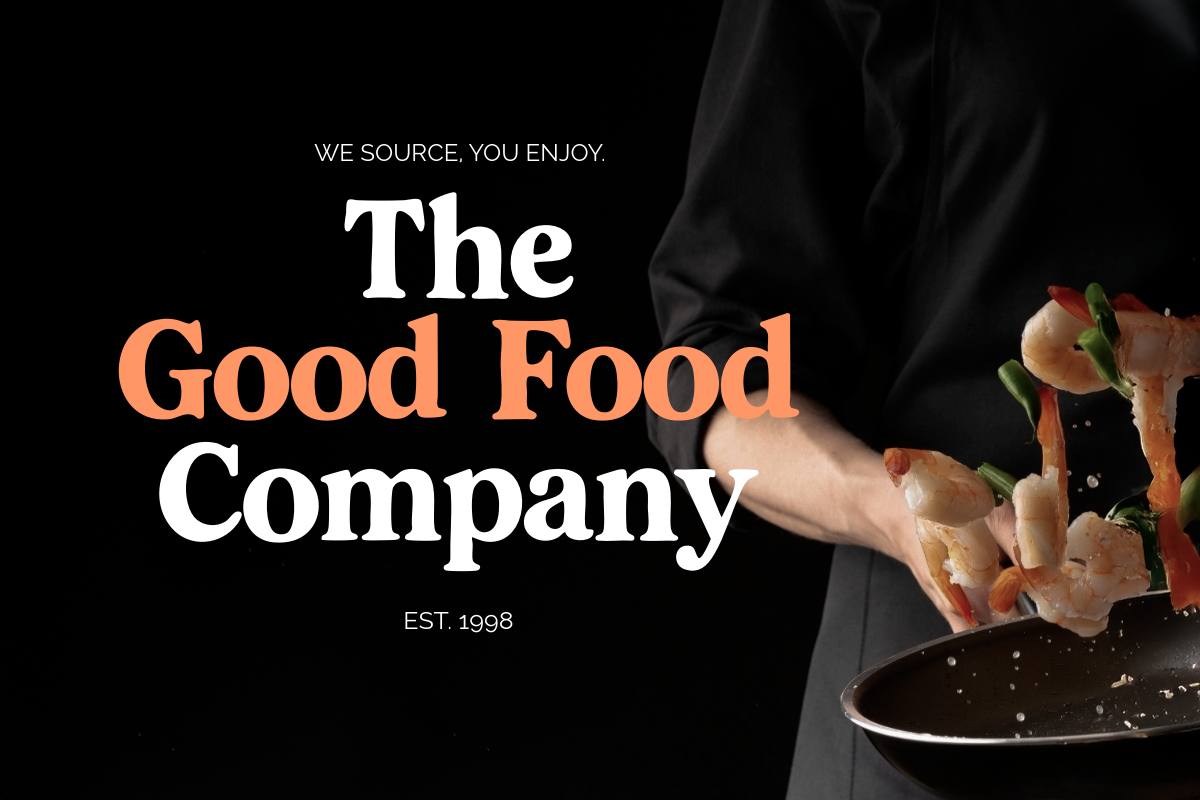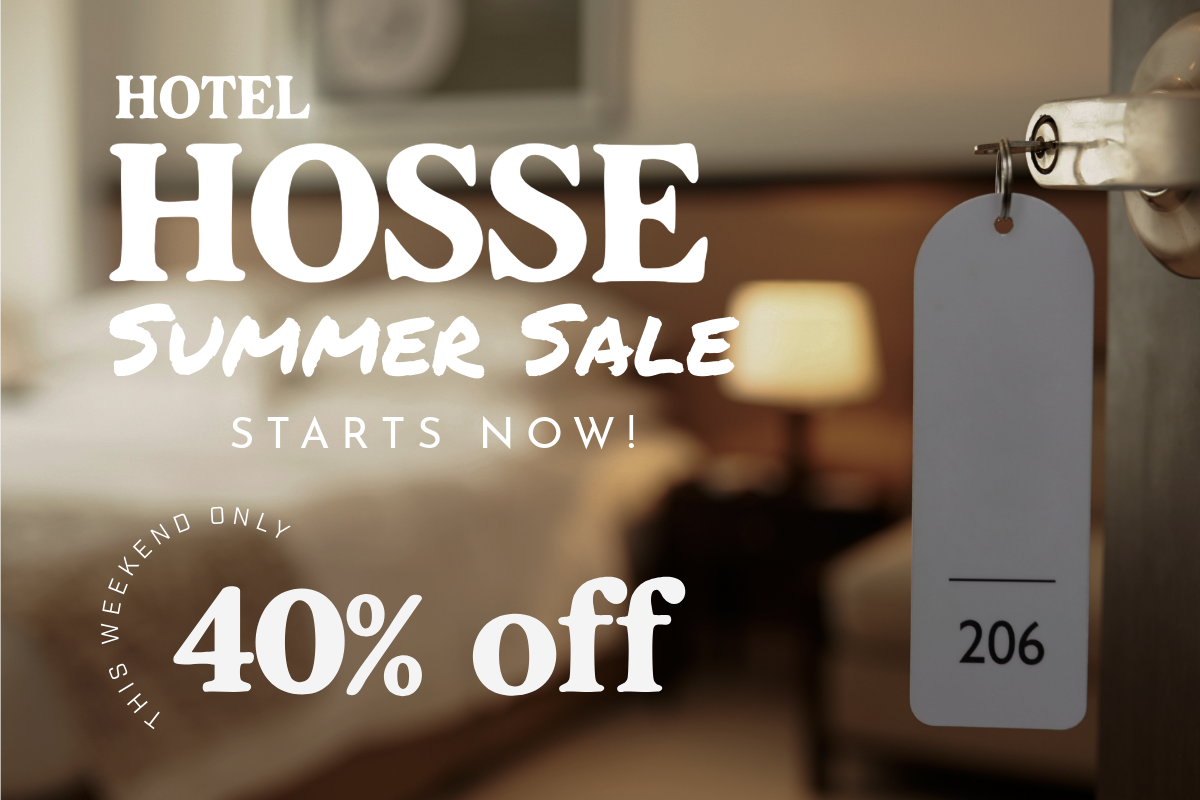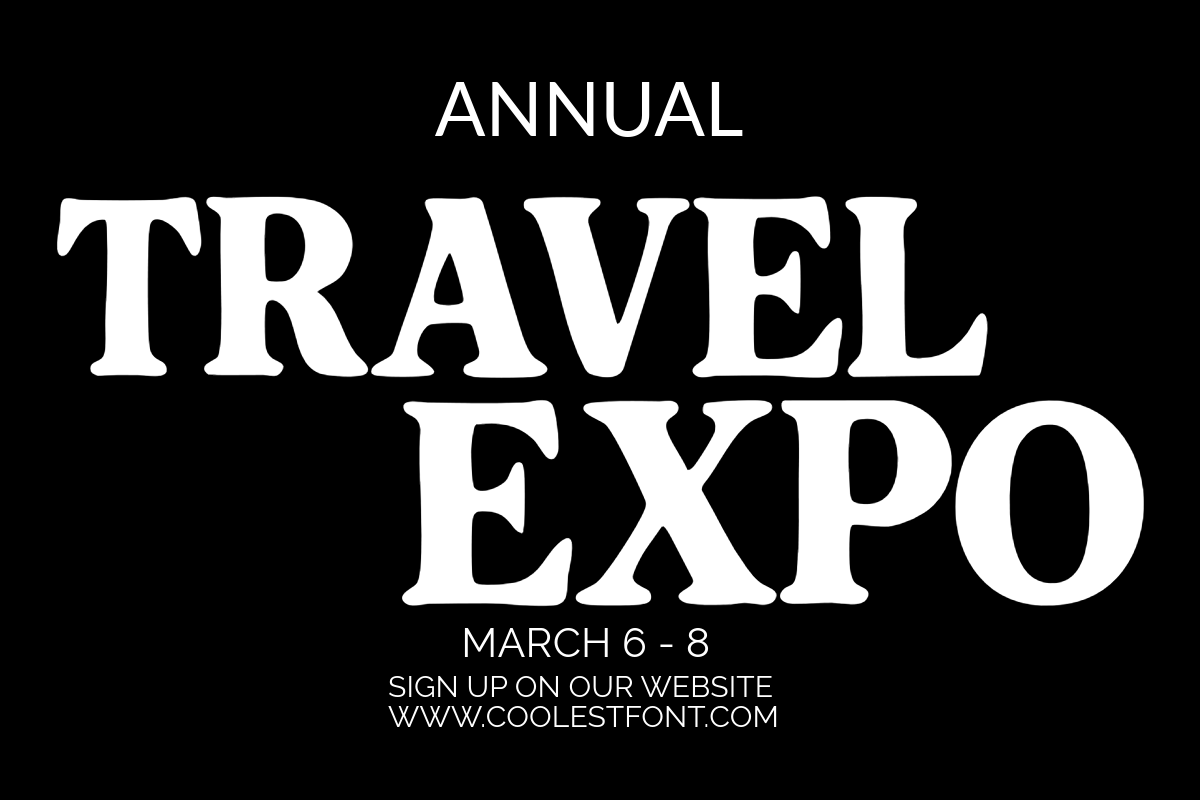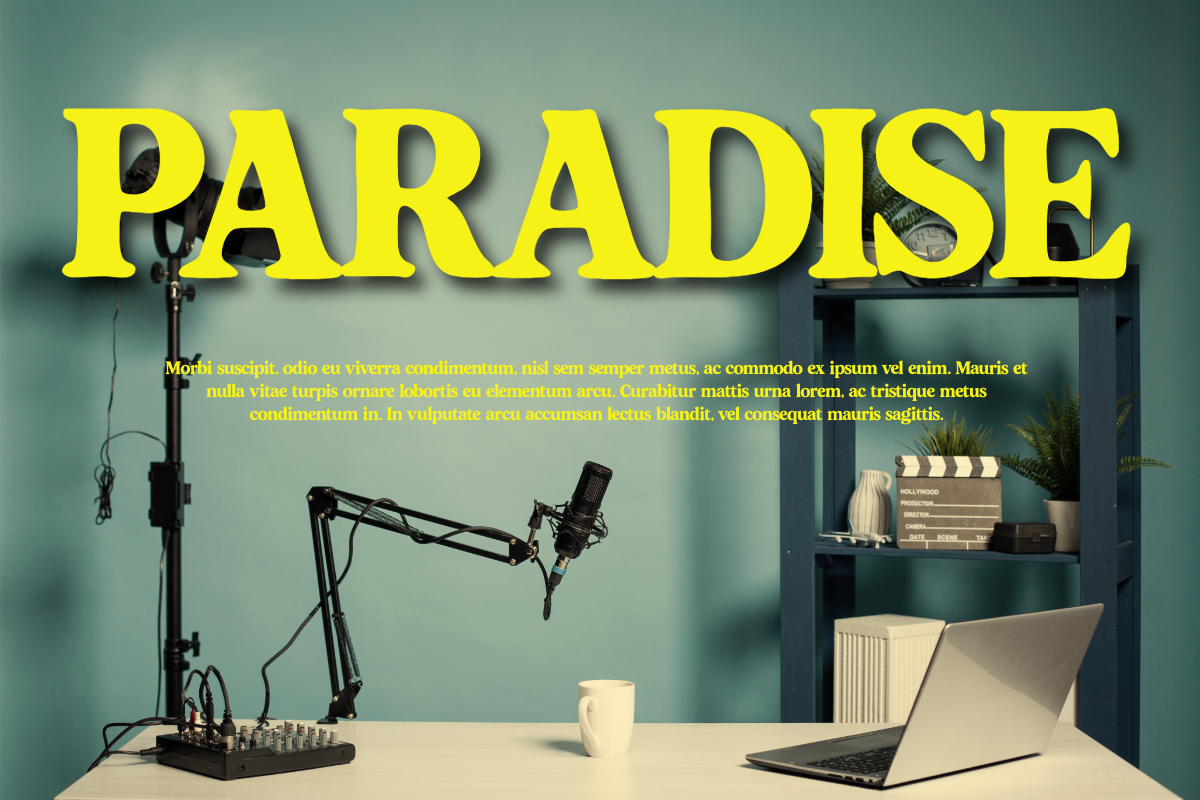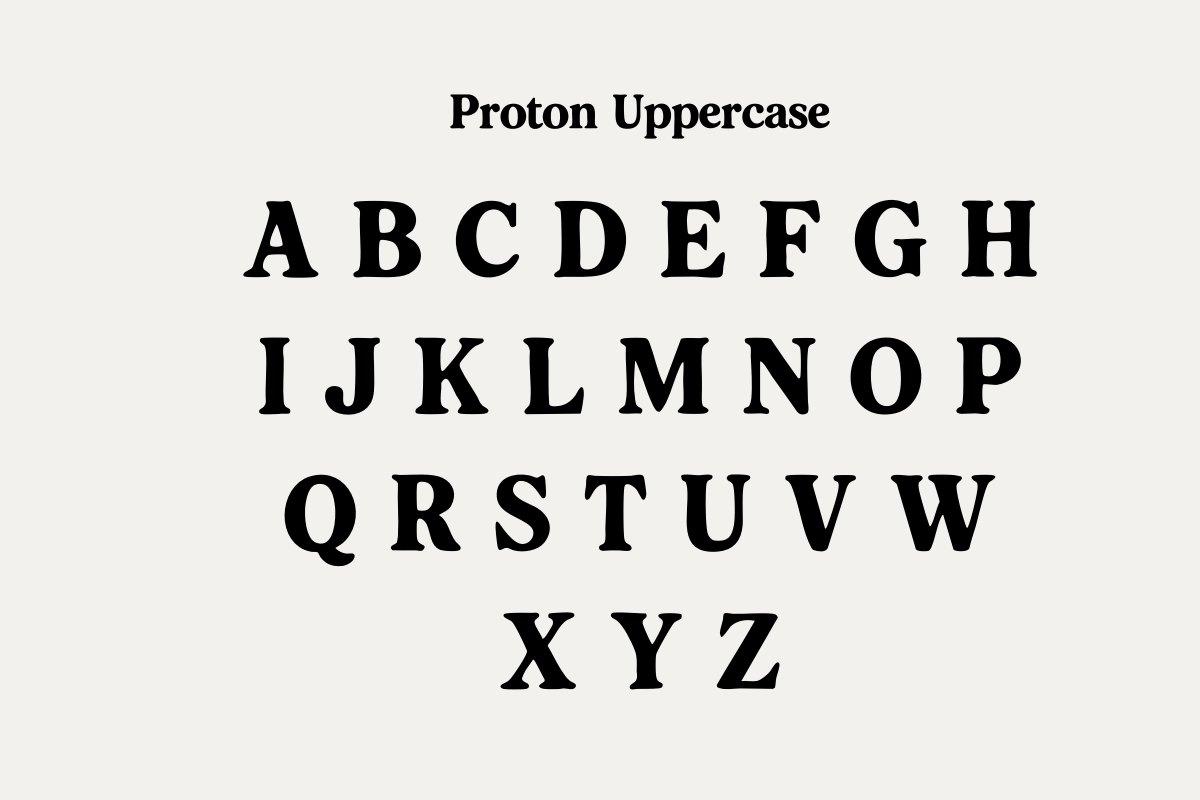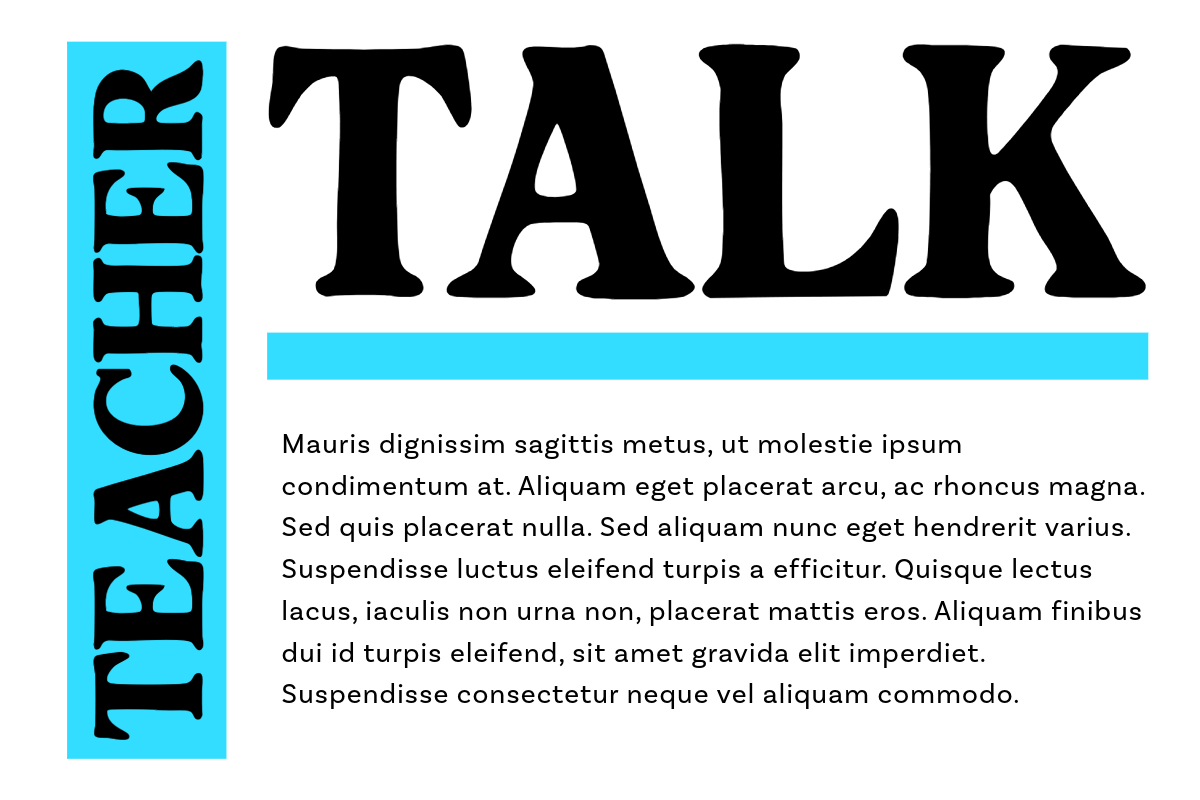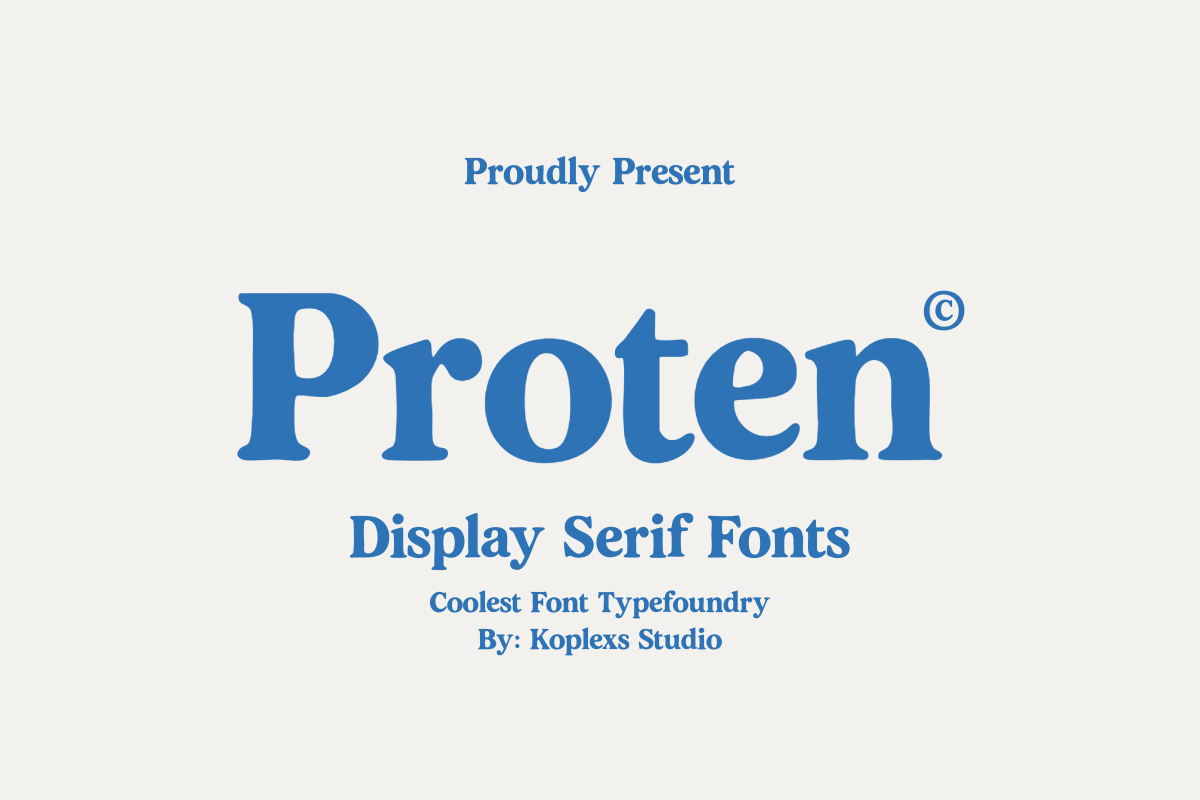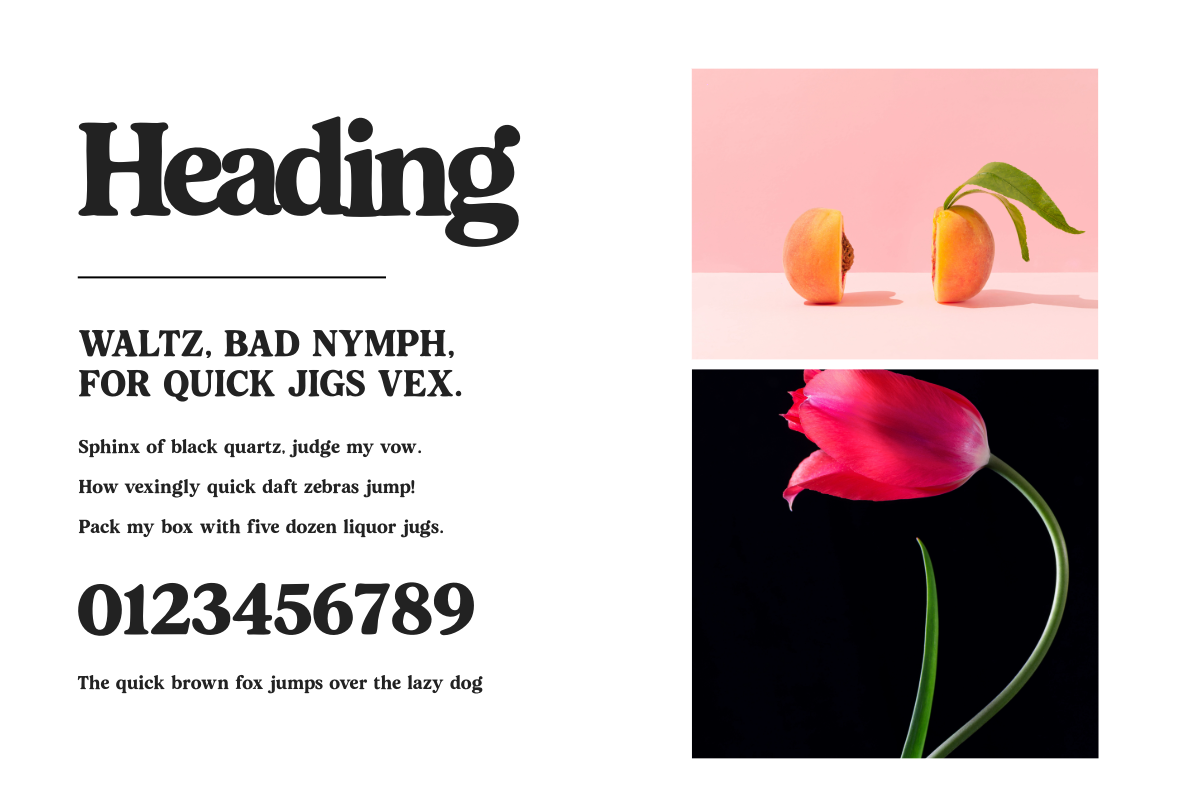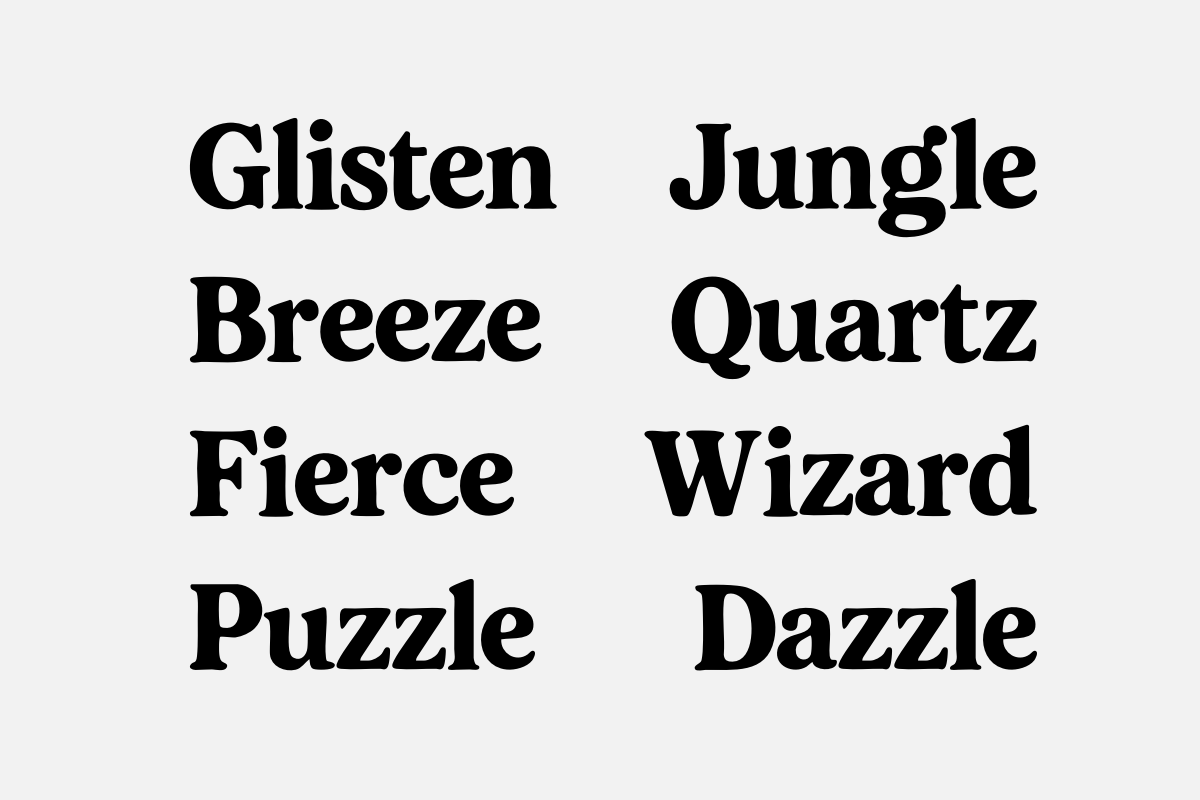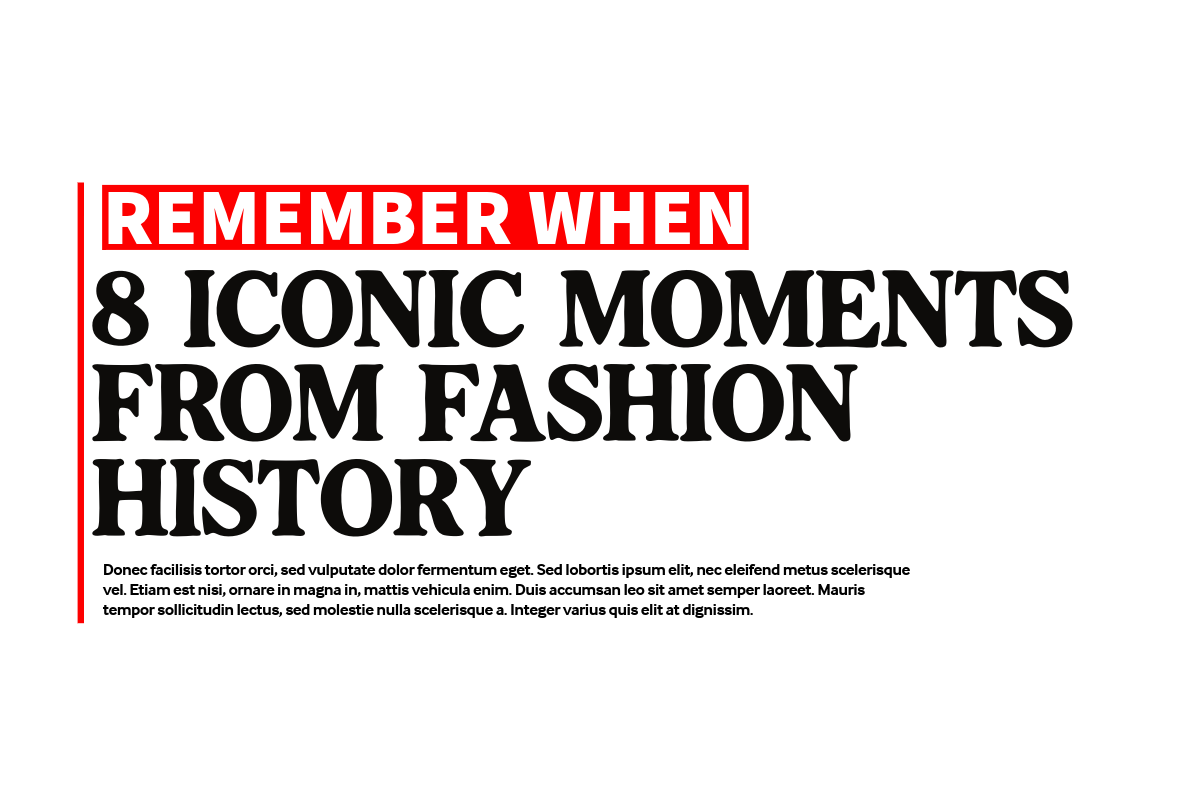
Proten Font - Display Serif Font
Proten – Display Serif Font
Introducing Proten Font, a bold and elegant serif display font that brings timeless charm with a modern twist. Designed to make your headlines pop and your branding shine, Proten is perfect for creatives who aren’t afraid to make a statement.
With high-contrast strokes, sleek curves, and classy details, this font is your new go-to for everything from luxury branding to magazine titles and chic social media graphics.
- Full uppercase & lowercase alphabet
🖋️ Features:
- Elegant serif design with a display flair
- Perfect balance of classic and contemporary style
- High contrast strokes for maximum impact
- Smooth curves and clean lines
- Easy to pair with minimalist layouts or bold concepts.
🧠 Great For:
- Branding & logo design
- Fashion editorials
- Product packaging
- Magazine titles & blog headers
- Wedding invitations
- Trendy Instagram quotes
- Posters, ads, and more
👀 Why You’ll Love It: Proten doesn’t whisper—it speaks with confidence. Whether you're building a luxury label, designing sleek packaging, or elevating your personal project, this font brings elegance, style, and a dash of drama to the table.